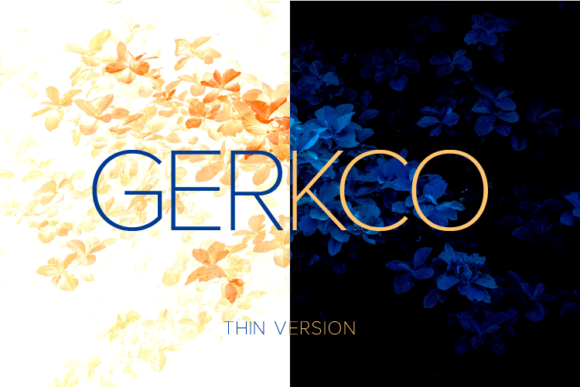
The Perfect Font for a Modern Touch
Have you ever stared at a blank page, waiting for inspiration to strike? For designers, those moments can be the most daunting – and exciting. It’s when the possibilities are endless, and the right font can make all the difference. That’s where Gerkco Thin Font comes in, a clean and elegant sans serif font that’s sure to elevate your projects to the next level.
This versatile font is perfect for creating logos, social media posts, book covers, and more. Its modern feel gives your designs a balanced and sophisticated look, making it a valuable addition to any designer’s toolkit. With Gerkco Thin Font, you’ll be able to give your projects a unique and stylish touch that’s sure to impress.
Gerkco Thin Font Key Features
- Unique Characteristic: Gerkco Thin Font is a sans-serif font with a unique, modern design that features a thin and elegant aesthetic, making it perfect for use in digital and print media.
- Font Weight: As the name suggests, Gerkco Thin Font is a light weight font, ideal for use in situations where a subtle, understated look is desired.
Gerkco Thin Font Review
First of all, I want to say that the Gerkco Thin Font is quite a unique and interesting font. The first thing that caught my eye is its ✨ elegant and minimalist design. It’s perfect for creating a clean and modern look for your designs. The font is also very versatile and can be used for a wide range of applications, from branding to editorial content.
One of the standout features of the Gerkco Thin Font is its ✨ high legibility. The font is easy to read, even at small sizes, making it perfect for digital applications. The font also has a ✨ nice touch of sophistication, which makes it ideal for creating a premium look for your designs.
- ⚠️ Limited language support: The font may not support all languages, which can be a limitation for designers who need to create content in multiple languages.
- ⚠️ Not suitable for bold headlines: While the font is great for body text, it may not be the best choice for bold headlines, as it can get lost in larger sizes.
Overall, I think the Gerkco Thin Font is a solid choice for designers who are looking for a clean and modern font. While it has some limitations, it’s a great option for creating a premium look for your designs. Just be aware of its limitations and use it in the right context.
Tips for Getting the Most Out of Gerkco Thin
To get the most out of the Gerkco Thin font, use it in conjunction with other sans-serif fonts to create a clean and modern design. Experiment with different font sizes, colors, and styles to find the perfect combination for your design.
The Gerkco Thin font is commonly used in modern designs, such as logos, business cards, and websites. It’s also a great choice for creating clean and minimalist typography.